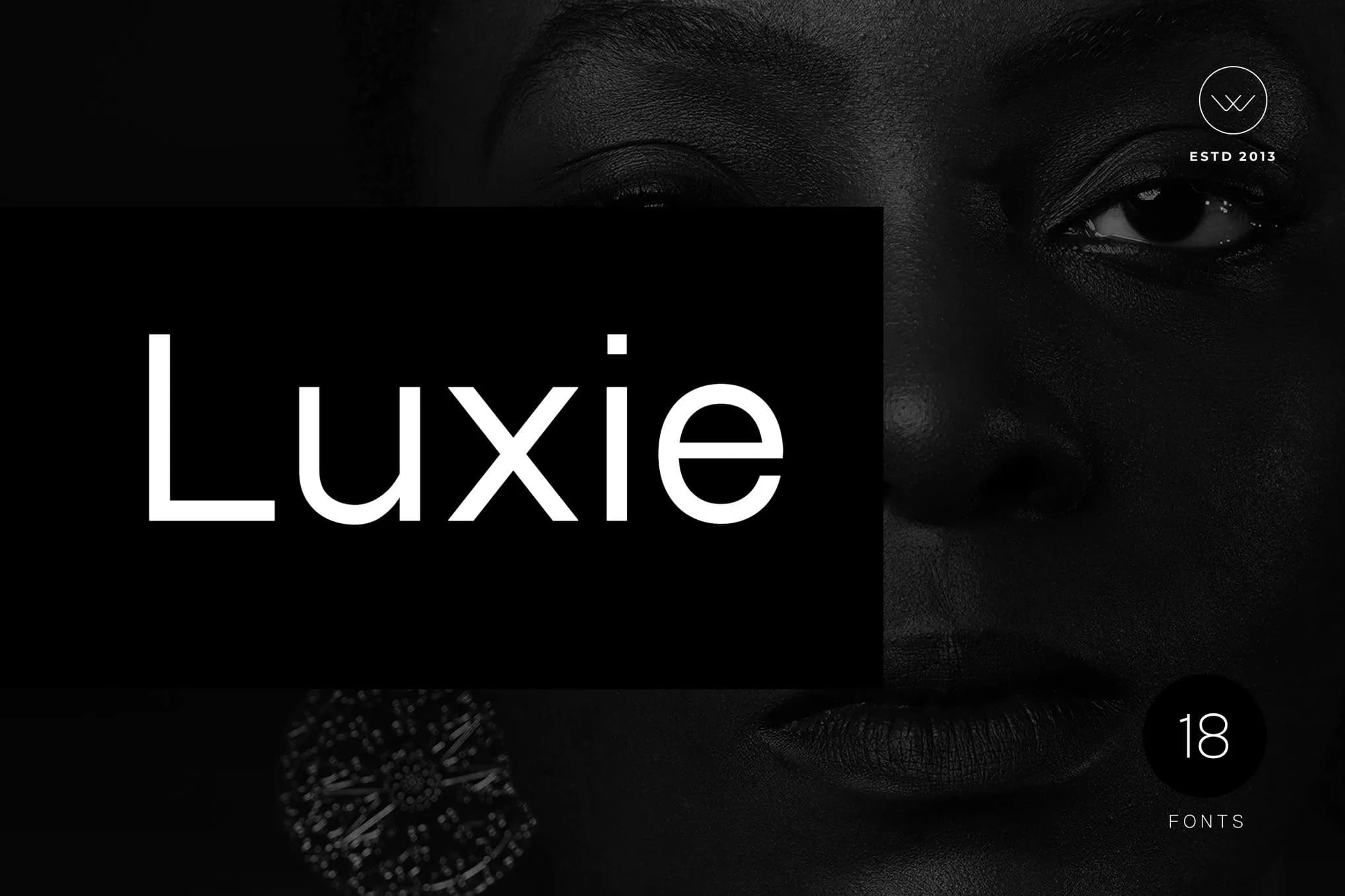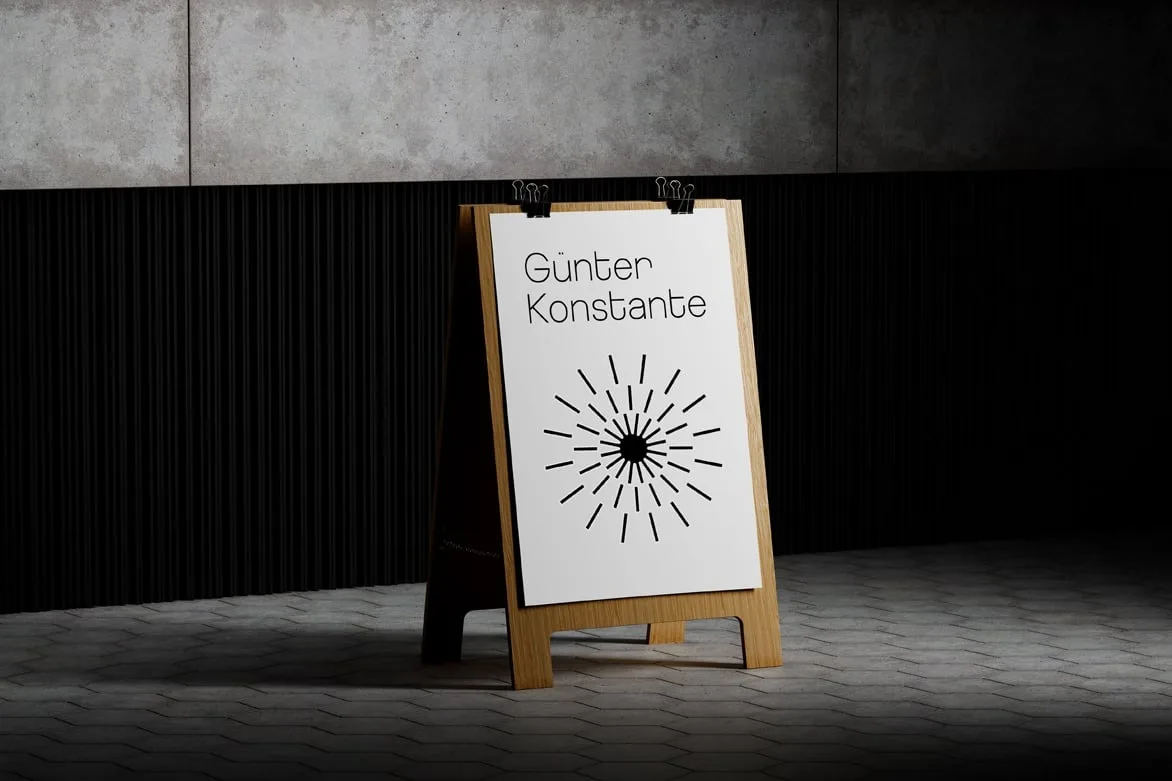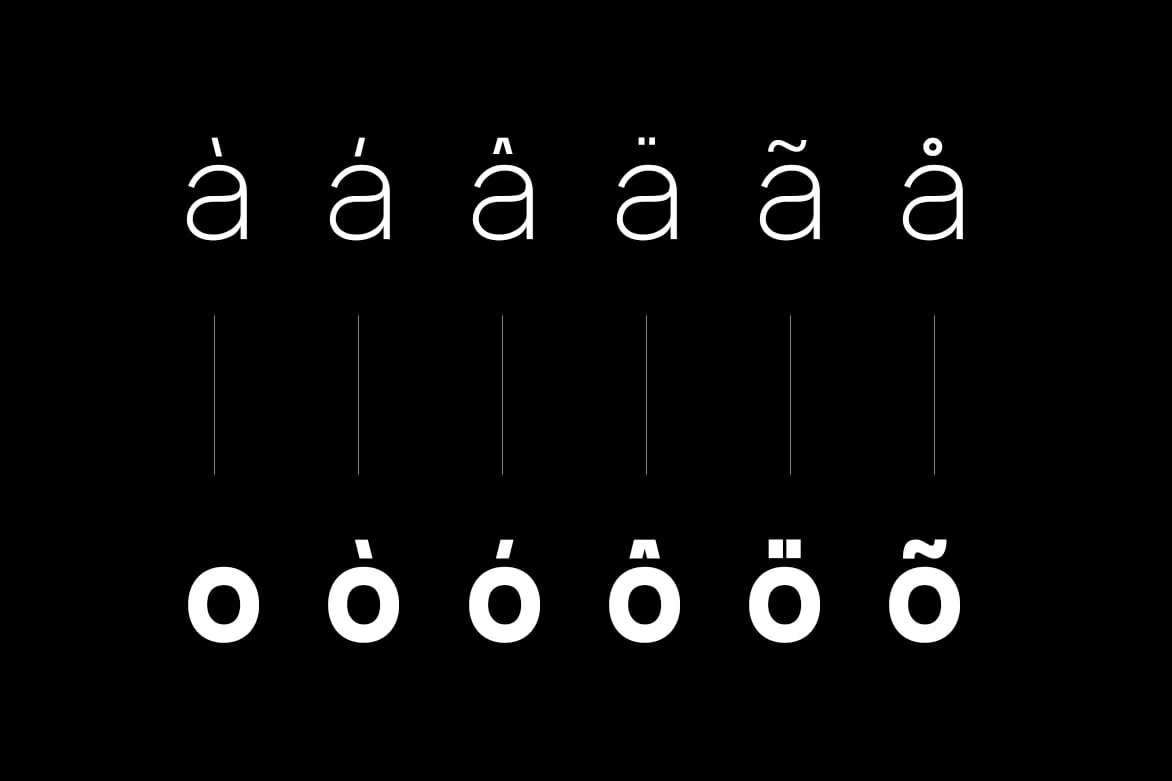
Luxie
Luxie is a modern minimalist sans-serif font designed for clarity and style. With smooth curves, balanced geometry, and extended Latin character support, Luxie fits perfectly into branding, editorial design, packaging, and digital interfaces. It includes full support for accented characters (such as à, á, â, ä, ã, å, ò, ó, ô, ö, õ, è, é, ê, ë, and more), making it ideal for multilingual use.
Luxie features 9 weights, from Thin to Black, each with matching true italics. Whether you’re designing bold headlines or clean body text, Luxie delivers a timeless and versatile look that adapts to any project.